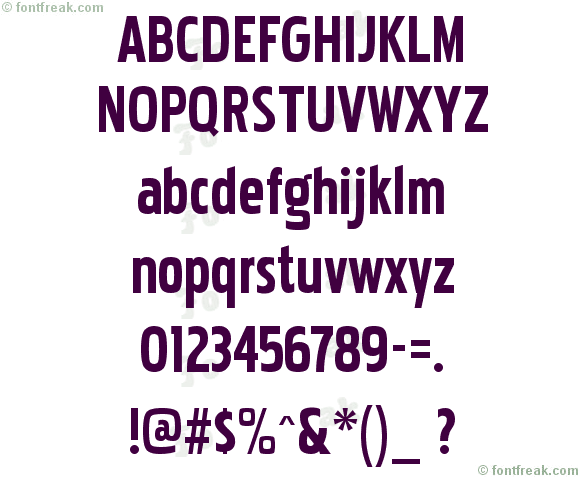
Pakenham
About Pakenham
The Pakenham font, designed by Ray Larabie in 2001, is a striking display typeface that captures attention with its bold, sans-serif characteristics. This font features a strong, uniform stroke weight with minimal contrast, making it an excellent choice for impactful headlines and branding. Its clean lines and open letterforms provide ample spacing, ensuring legibility even at larger sizes. The subtle yet distinct geometric shapes lend a modern flair, making Pakenham versatile for various design applications.
Ideal use cases for the Pakenham font include creating eye-catching movie posters, unique logos, and engaging restaurant menus that draw customers in. Its assertive presence makes it suitable for promotional materials, banners, and social media graphics, offering a perfect balance between contemporary aesthetics and functional design. The font targets graphic designers and small business owners looking for a distinctive typeface to enhance their visual identity. Content creators will also find Pakenham beneficial for crafting compelling visuals that require a bold statement.
What truly sets the Pakenham font apart is its ability to convey modernity while remaining approachable. Its simplicity does not compromise its visual impact, making it a favored choice for projects that demand attention without overwhelming the viewer. With a Pakenham font free download available, designers can easily incorporate this remarkable typeface into their toolkit, allowing for creative freedom and innovation in their work. This font’s unique blend of strength and clarity makes it an essential option for anyone seeking to elevate their design projects with a distinctive touch.